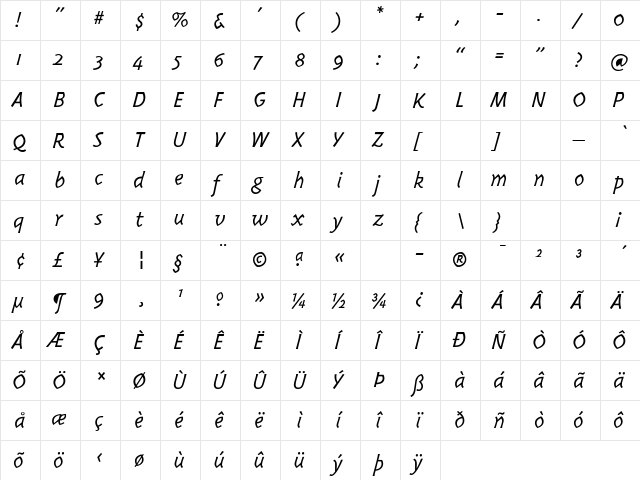
PannikinLightSSK Italic Font Preview
Design Context for PannikinLightSSK Typeface
PannikinLightSSK takes a measured approach to typography — its balanced proportions and neutral character make it a reliable workhorse for both digital and print work. The dynamic lean of this cut emphasises speed and emphasis in any layout. Its slender proportions lend an understated elegance to any composition.
Pro Tip: Try PannikinLightSSK for annotation and caption copy alongside an upright companion — the contrast in angle creates a dynamic but ordered typographic system.